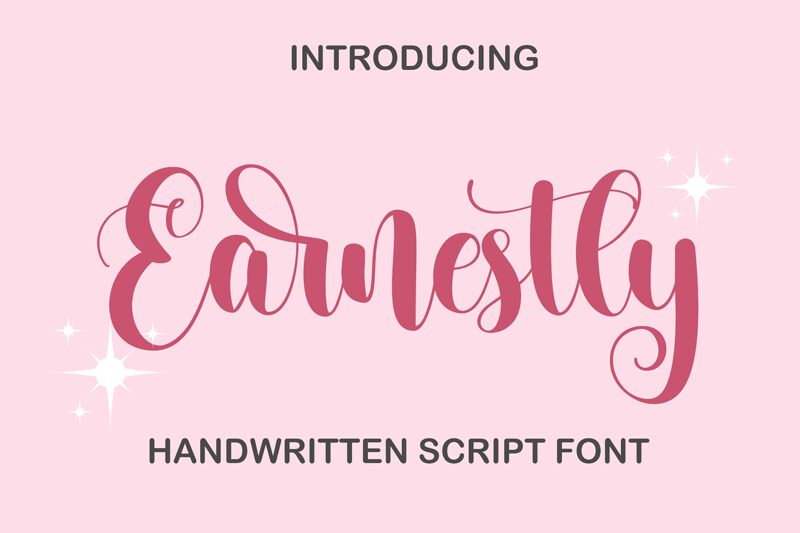
Earnestly, a captivating calligraphy font by Bearytype, adds an enchanting touch to your projects. Its elegant curves and flowing strokes evoke a sense of sophistication and grace. Perfect for wedding invitations, greeting cards, or branding materials, this semi-bold typeface effortlessly conveys romance and refinement. Earnestly's versatility makes it equally suitable for fashion magazines, luxury labels, or artistic portfolios. Whether you're designing a logo for an upscale event or creating personalized stationery that exudes charm, Earnestly will elevate your work with its timeless beauty and tasteful appeal.
Earnestly